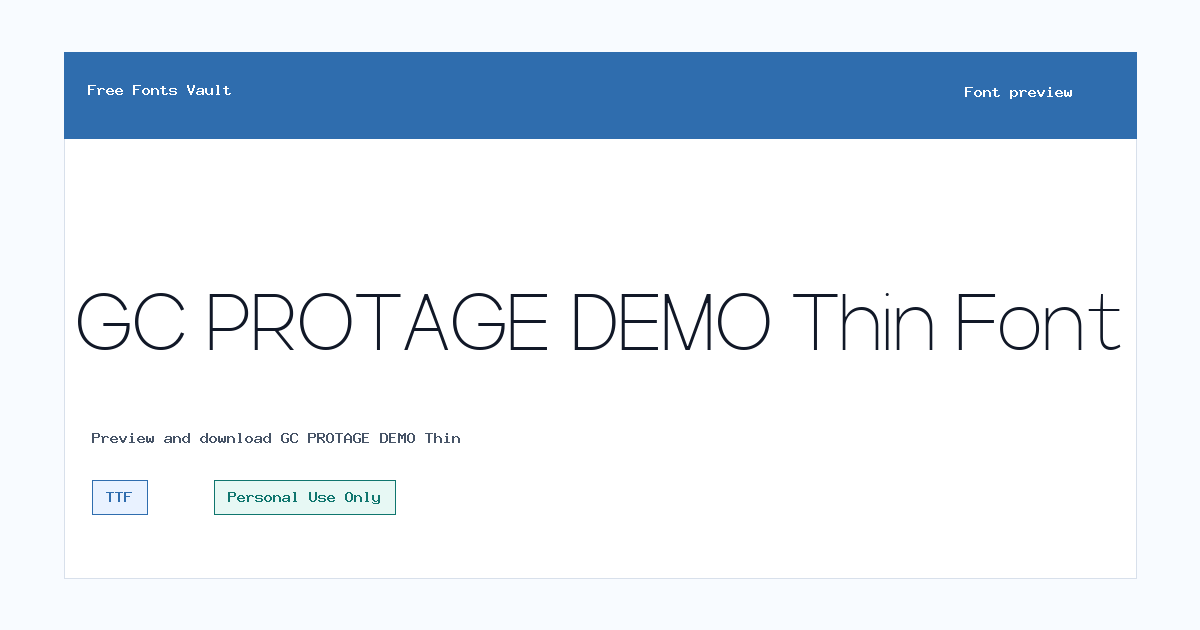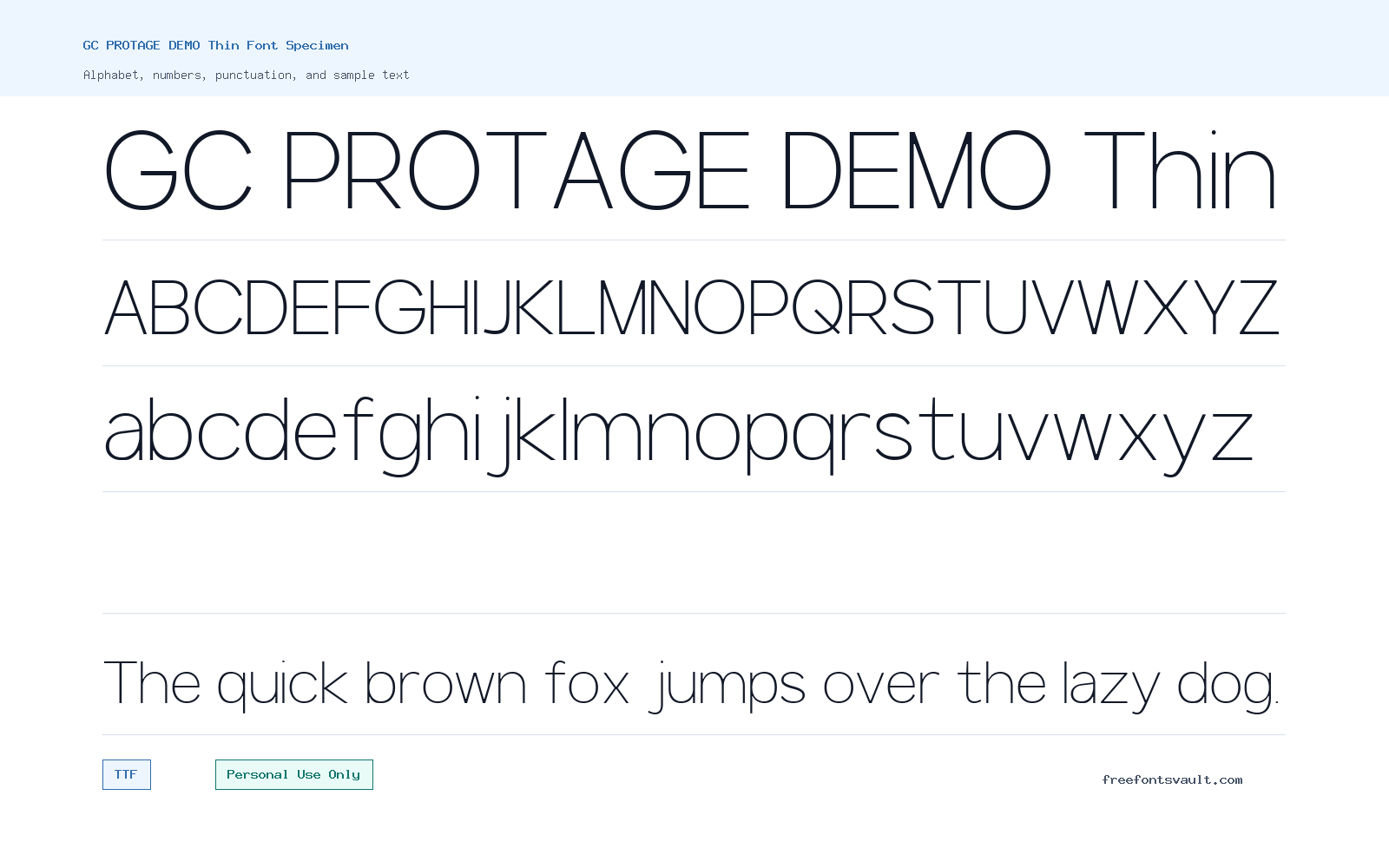
GC PROTAGE DEMO Thin
GC PROTAGE DEMO Thin Font
• Designer Dwi Indah Fadhilatul Amanah of Glyphonic
• Foundry Glyphonic
GC PROTAGE DEMO Thin is the lightest listed weight in the GC Protage demo family, made for personal-use testing and clean visual previews. Its thin stroke weight gives text a quiet, minimal look, especially in short headings, display lines, and layout mockups where you want the type to feel open rather than heavy.
About GC PROTAGE DEMO Thin
GC PROTAGE DEMO Thin is a sans serif font style from Glyphonic, designed by Dwi Indah Fadhilatul Amanah. This Thin cut uses a very light 100 weight, so it works best when the design has enough space around the letters. It is not the kind of weight you choose for dense body copy or small interface labels. Instead, it is more useful for refined titles, portfolio covers, fashion-style captions, editorial graphics, mood boards, and other short text where the thin structure can stay clear.
Because this is a demo/personal-use font, it is a good option for trying the GC Protage look before committing to a project. Use the preview tool to test the exact words you plan to design with, not just the font name. Thin fonts can look elegant at large sizes, but they can become faint on small screens, low-contrast backgrounds, or compressed images. For the best result, try it with strong contrast, generous spacing, and simple layouts. If your design needs long paragraphs, pair this Thin weight with a more readable text face or a heavier companion style.
• Thin 100-weight sans serif style for clean, lightweight display text
• Minimal headings, posters, covers, and social media graphics using short text
GC PROTAGE DEMO Thin is credited to Dwi Indah Fadhilatul Amanah of Glyphonic.
Set GC PROTAGE DEMO Thin at larger sizes and check legibility before using it in a finished design. Thin strokes need contrast and space, so avoid placing the font over busy photos, pale backgrounds, or very small mobile text. It can work well as a quiet headline paired with a sturdier sans serif for body copy.
What kind of font is GC PROTAGE DEMO Thin?
It is a thin sans serif style from the GC Protage demo family. The listed weight is 100, which makes it best suited to light display text rather than small paragraphs.
How should I preview this Thin weight?
Test it with the actual headline, name, or phrase you plan to use. Try larger sizes, high contrast, and a little extra spacing so the thin strokes remain readable.